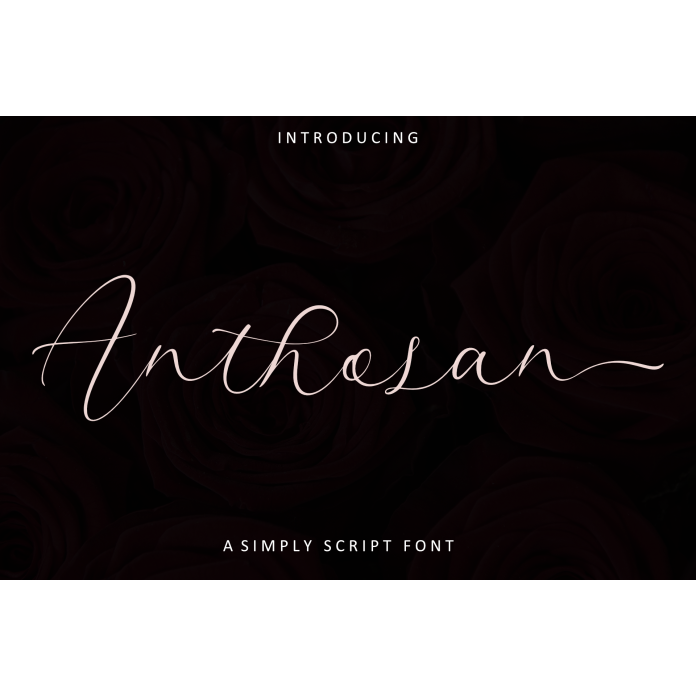
Anthosan is a beautifully crafted handwritten font that combines elegance and modern charm. With its unique blend of fluid strokes and natural imperfections, this font adds a personal touch to any project. Perfect for invitations, greeting cards, branding, and more, Anthosan brings warmth and individuality to your designs. The font features a range of ligatures and alternates, giving you the flexibility to create distinctive and memorable text.